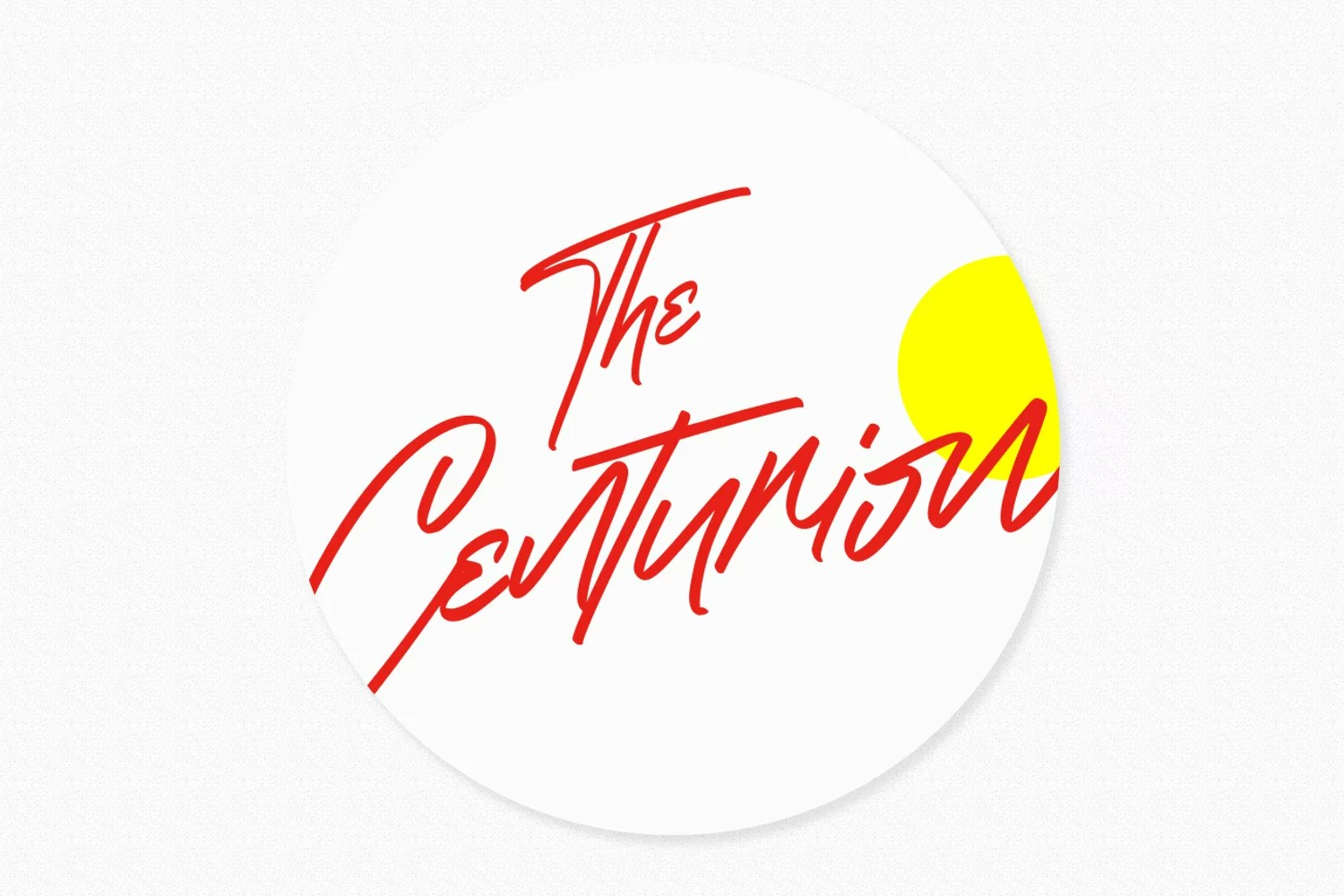
Rosesmont is a Signature Script font. With felt-tip stroke, super slant and fun character with a bit of ligatures and lowercase alternates. To give you an extra creative work. Rosesmont font support multilingual more than 100+ language. This font is good for logo design, Social media, Movie Titles, Books Titles, a short text even a long text letter and good for your secondary text font with script, sans or serif. Make a stunning work with Rosesmont font.